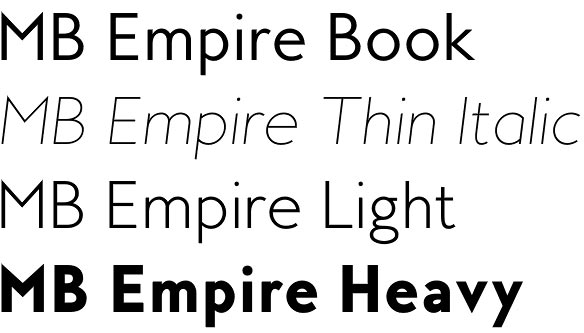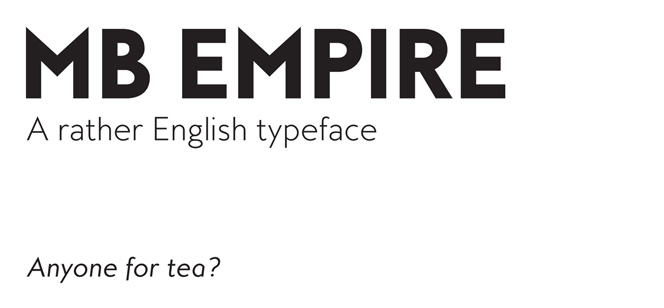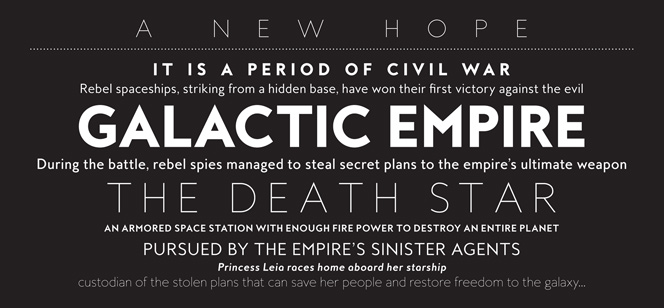
MB Empire font
MB Empire font by Ben Mecke-Burford (M-B Creative type foundry) is a Sans Serif family with its roots in the 1900s British typography – the Humanist era. MB Empire typeface family throws a bridge between the traditional early 20th century English design and digital modernity. It transfers the key features like large apertures and calligraphy strokes giving them a contemporary context and individuality. Ideal for books & magazines, but not less suitable for any display purpose.
MB Empire font family comes in six weights (from Thin to Heavy) plus matching italics. Extended language support provided. Available are OpenType features such as Oldstlye & Lining Figures, Automatic Fractions, Ligatures, Stylistic Alternates and more.
The English type designer Ben Mecke-Burford is publishing interesting contemporary interpretations of vintage and art-deco typefaces through his M-B Creative type foundry. See also MB Vinatage font, MB Picture House font, MB NOIR font.
Designers: Ben Mecke-Burford
Publisher: M-B Creative